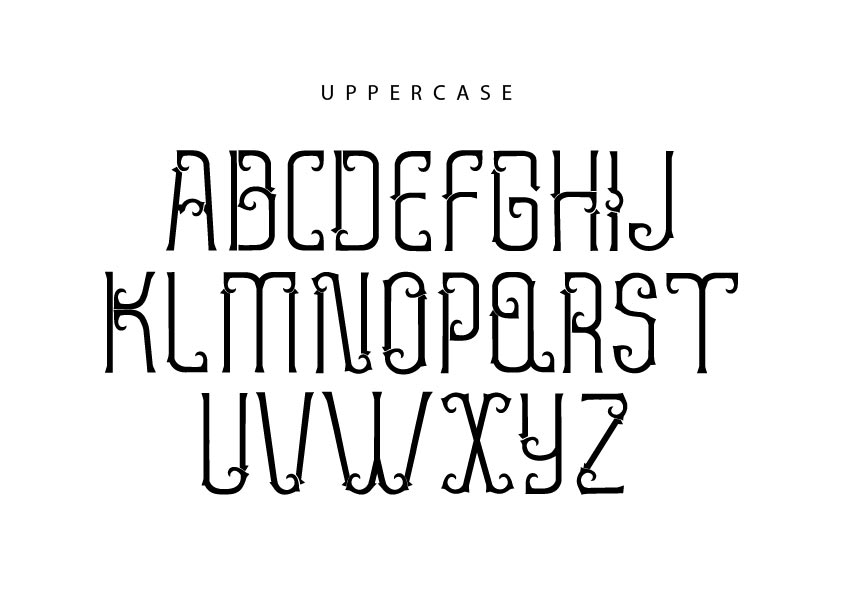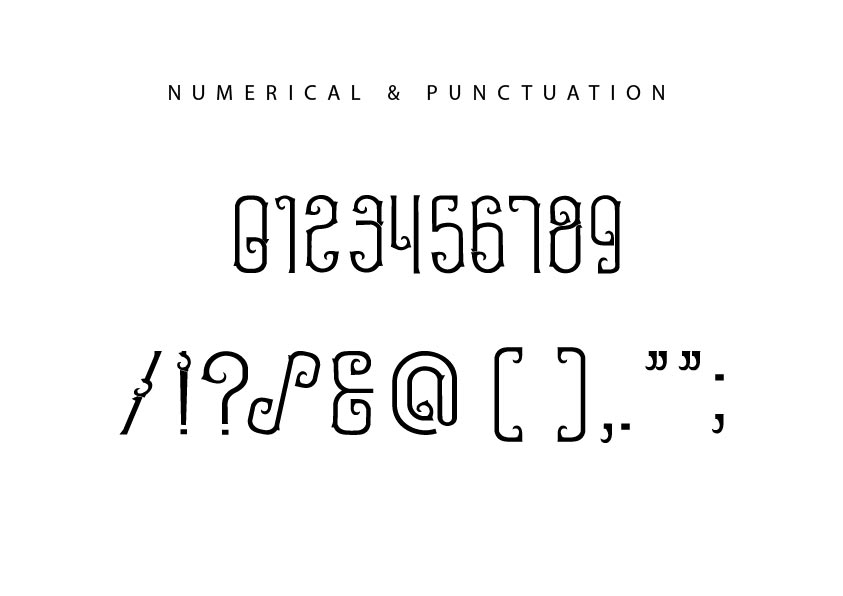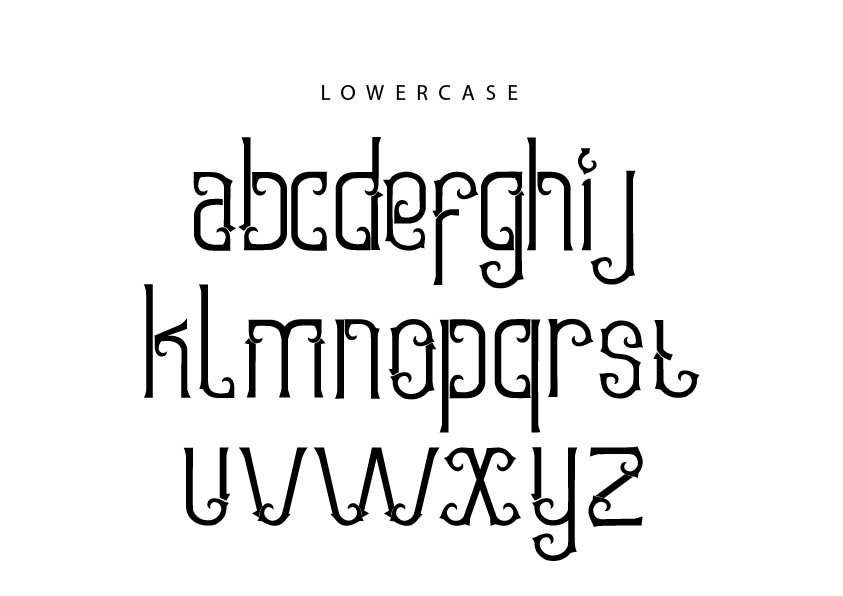
Binuang Font: Elevate Your Designs with a Simply Decorative Touch
In the world of typography, fonts play a crucial role in conveying messages, expressing creativity, and enhancing the visual appeal of designs. For designers and crafters seeking a unique and decorative font to make their projects stand out, Binuang Font is an excellent choice. This simply decorative font is specifically designed for headlines and display purposes, offering a distinctive flair to elevate your designs.
What is Binuang Font?
Binuang Font is a decorative typeface that boasts a unique and captivating aesthetic. Its design is characterized by elegant lines, curves, and shapes, making it perfect for adding a touch of sophistication to your designs. Whether you’re working on a logo, poster, or social media graphic, Binuang Font is sure to make a statement.
Key Features of Binuang Font
- Simply Decorative: Binuang Font features a decorative design that’s both elegant and eye-catching, making it ideal for headlines and display purposes.
- Unique Aesthetic: The font’s distinctive style sets it apart from other typefaces, ensuring your designs stand out from the crowd.
- Versatile: Binuang Font can be used across various design projects, from logos and posters to social media graphics and more.
- Easy to Read: Despite its decorative nature, Binuang Font remains clear and readable, making it perfect for use in headlines and titles.
Uses of Binuang Font
Binuang Font’s versatility makes it suitable for a wide range of design applications. Here are some popular uses for this beautiful font:
- Headlines and Titles: Binuang Font is perfect for creating eye-catching headlines and titles that grab attention.
- Logos and Branding: The font’s unique aesthetic makes it an excellent choice for logos and branding materials.
- Posters and Flyers: Add a touch of elegance to your posters and flyers with Binuang Font.
- Social Media Graphics: Use Binuang Font to create engaging social media graphics that stand out.
Tips for Using Binuang Font
To get the most out of Binuang Font, consider the following tips:
- Use it Sparingly: Binuang Font is best used sparingly, as its decorative nature can be overwhelming in large blocks of text.
- Pair it with a Simple Font: Combine Binuang Font with a simple, easy-to-read font for body text to create visual balance.
- Experiment with Colors and Textures: Binuang Font looks great in a variety of colors and textures, so don’t be afraid to experiment and find the perfect combination for your design.
| Font Name | Binuang Font |
| Author | Munk Art |
Binuang Font is a beautiful, simply decorative font that’s perfect for designers and crafters looking to add a unique touch to their projects. Its elegant design, versatility, and readability make it an excellent choice for headlines, titles, logos, and more. With its distinctive aesthetic and wide range of uses, Binuang Font is sure to become a staple in your design toolkit.